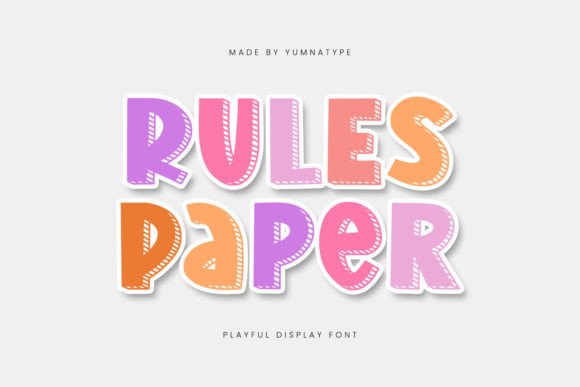
Rules Paper: A Bold Display Font for Dynamic Design Workflows
In the landscape of digital typography, few typefaces manage to balance structural integrity with an infectious sense of playfulness as effectively as Rules Paper. This display font is not merely a collection of characters; it is a design asset engineered to inject energy and confidence into visual communication projects. For professionals ranging from graphic designers and marketing strategists to educators and small business owners, selecting the right typeface is often the pivotal moment that defines the tone of a campaign or brand identity. Rules Paper stands out in this selection process due to its thick weight, rounded shapes, and visible contrast, offering a bold presence that commands attention without sacrificing readability.
Understanding where Rules Paper fits within a broader creative workflow is essential for maximizing its impact. Unlike body fonts designed for dense blocks of text, Rules Paper serves as a primary visual anchor. It is best deployed at the beginning of a project's visual hierarchy, establishing the mood before any other elements are introduced. Whether you are designing a poster, a website header, a social media graphic, or a packaging label, this font acts as the headline driver that guides the viewer's eye and sets the emotional stage for the content that follows.
Defining the Visual Character and Structural Integrity
The defining characteristic of Rules Paper lies in its meticulous construction. The font features a consistently thick weight that gives it a substantial, confident feel on the page or screen. This boldness ensures that headlines do not get lost in busy layouts or high-contrast environments. However, what prevents this heaviness from appearing clunky or overwhelming is the strategic use of rounded shapes. These curves soften the edges of the letters, infusing the typeface with a friendly and approachable character that resonates well with modern audiences.
Beyond aesthetics, the technical execution of Rules Paper demonstrates a commitment to quality control. Each letter is designed with consistent proportions, ensuring that the spacing and alignment remain harmonious across different word lengths. This consistency is crucial for maintaining a professional appearance, even when the font is used in large sizes where minor irregularities would be magnified. Furthermore, the quite visible contrast within the strokes adds depth and dimension to the words. This interplay of light and shadow within the letterforms enhances visual interest, making the text pop off the background while maintaining legibility.
Integrating Rules Paper into the Pre-Production Phase
Effective implementation of any design asset begins long before the first pixel is placed. When planning a project, such as a rebranding initiative or a seasonal marketing campaign, the choice of typography should align with the strategic goals of the work. During the pre-production phase, Rules Paper can serve as a conceptual touchstone. If the goal is to communicate innovation, fun, or approachability, this font provides a concrete visual reference that helps align stakeholders and team members.
Before finalizing a design, it is advisable to test how Rules Paper interacts with your existing brand palette and imagery. Because of its thick weight, it pairs exceptionally well with minimalist backgrounds or vibrant, solid colors. In the planning stage, create mood boards that feature Rules Paper alongside potential color schemes and photographic styles. This helps in determining whether the playful vibe of the font complements the overall narrative or if it clashes with more serious or corporate elements. By evaluating these interactions early, you can avoid costly revisions later in the process and ensure that the font supports the intended message from the outset.
Execution Strategies During the Design Process
Once the project moves into the execution phase, the focus shifts to practical application. Rules Paper is most effective when used sparingly to highlight key messages. Due to its display nature, it is not suited for long paragraphs but excels in titles, slogans, and short calls to action. When integrating the font into a layout, pay close attention to kerning and leading. The rounded shapes and thick strokes require sufficient breathing room to maintain their clarity. Crowding the letters can diminish the impact of the visible contrast and make the text appear muddy.
For digital workflows, compatibility is a key factor. Ensure that the version of Rules Paper you are using supports the necessary character sets for your target audience. If your project involves multilingual content, verify that the font includes the required glyphs. Additionally, consider how the font renders across different devices. The bold weight generally translates well to mobile screens, but testing on various resolutions is a standard best practice to guarantee that the rounded details remain crisp and the contrast is preserved.
When working collaboratively, establish clear usage guidelines for Rules Paper. Document specific scenarios where the font should be used and where alternative typefaces might be more appropriate. This organizational step ensures consistency across all deliverables, whether they are created by a single designer or a distributed team. Consistency in typography is a hallmark of professional branding, and having a defined protocol for using Rules Paper helps maintain that standard.
Post-Implementation and Long-Term Usability
After the initial launch of a project, the performance of the chosen typography should be monitored. In marketing contexts, this might involve analyzing engagement metrics on ads or landing pages that feature Rules Paper headlines. Does the playful style drive higher click-through rates? Is the bold presence effective in stopping the scroll? Gathering this feedback allows for data-driven decisions regarding future use. If the font performs well, it may become a staple in your brand's visual language, used repeatedly across various campaigns to build recognition.
Ultimately, Rules Paper offers a robust solution for those seeking to infuse their work with personality and strength. Its combination of bold weight, rounded friendliness, and structural balance makes it a versatile tool for a wide range of applications. By understanding its characteristics and integrating it thoughtfully into your planning, execution, and review processes, you can harness its full potential to create compelling, memorable designs that resonate with your audience. Whether you are launching a new product, updating a website, or creating educational materials, Rules Paper provides the visual foundation needed to make your message stand out with confidence and style.